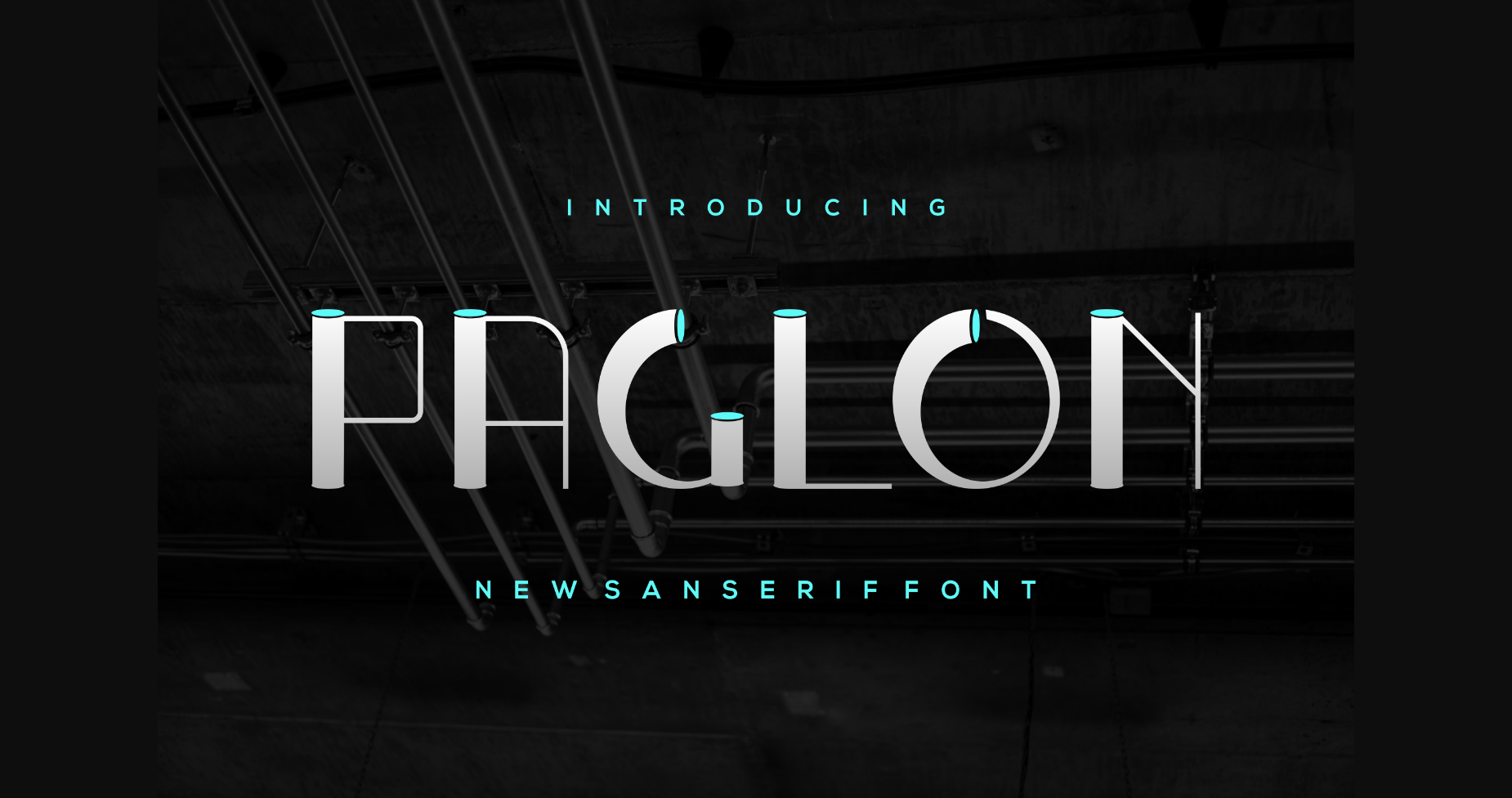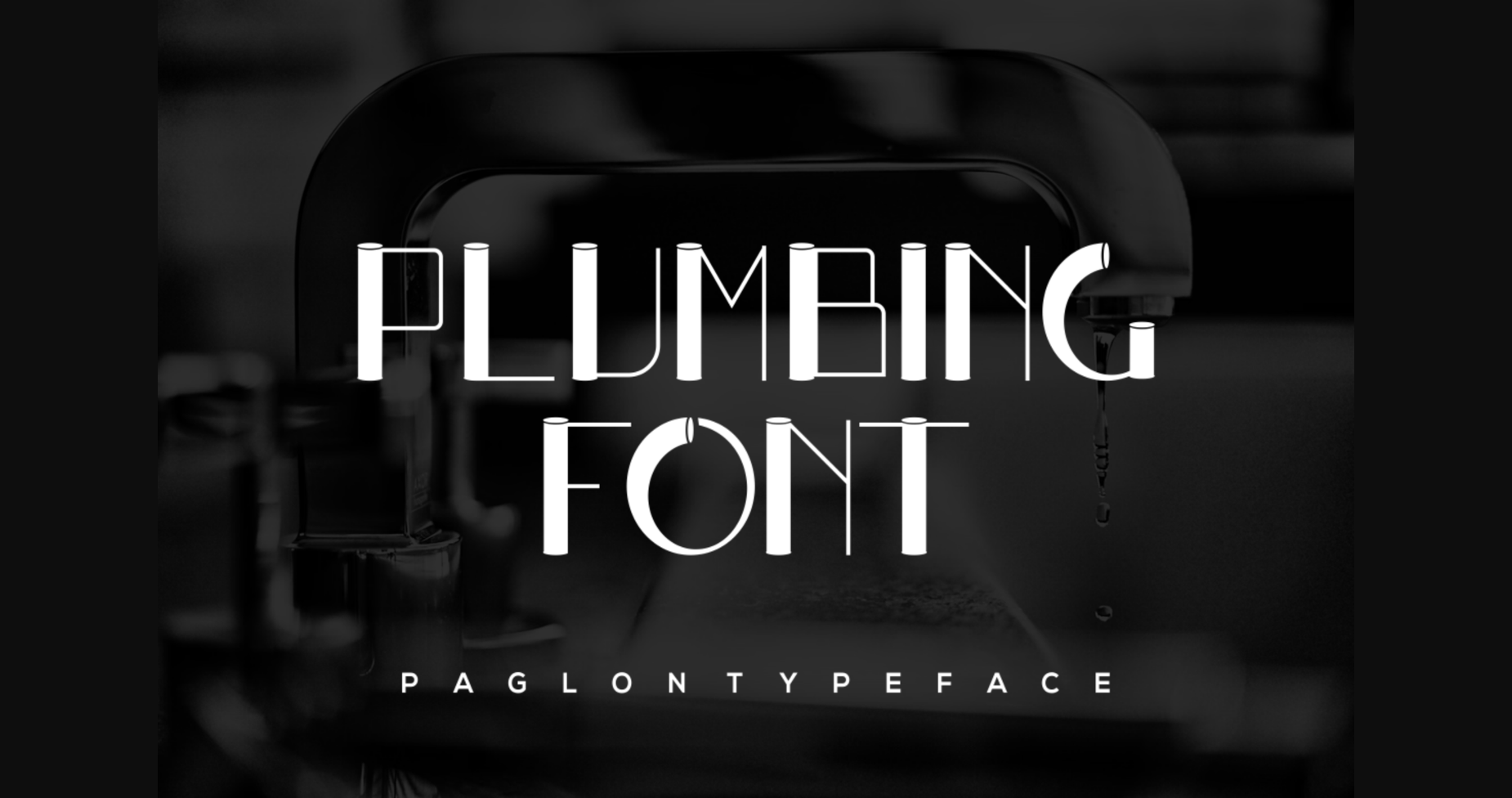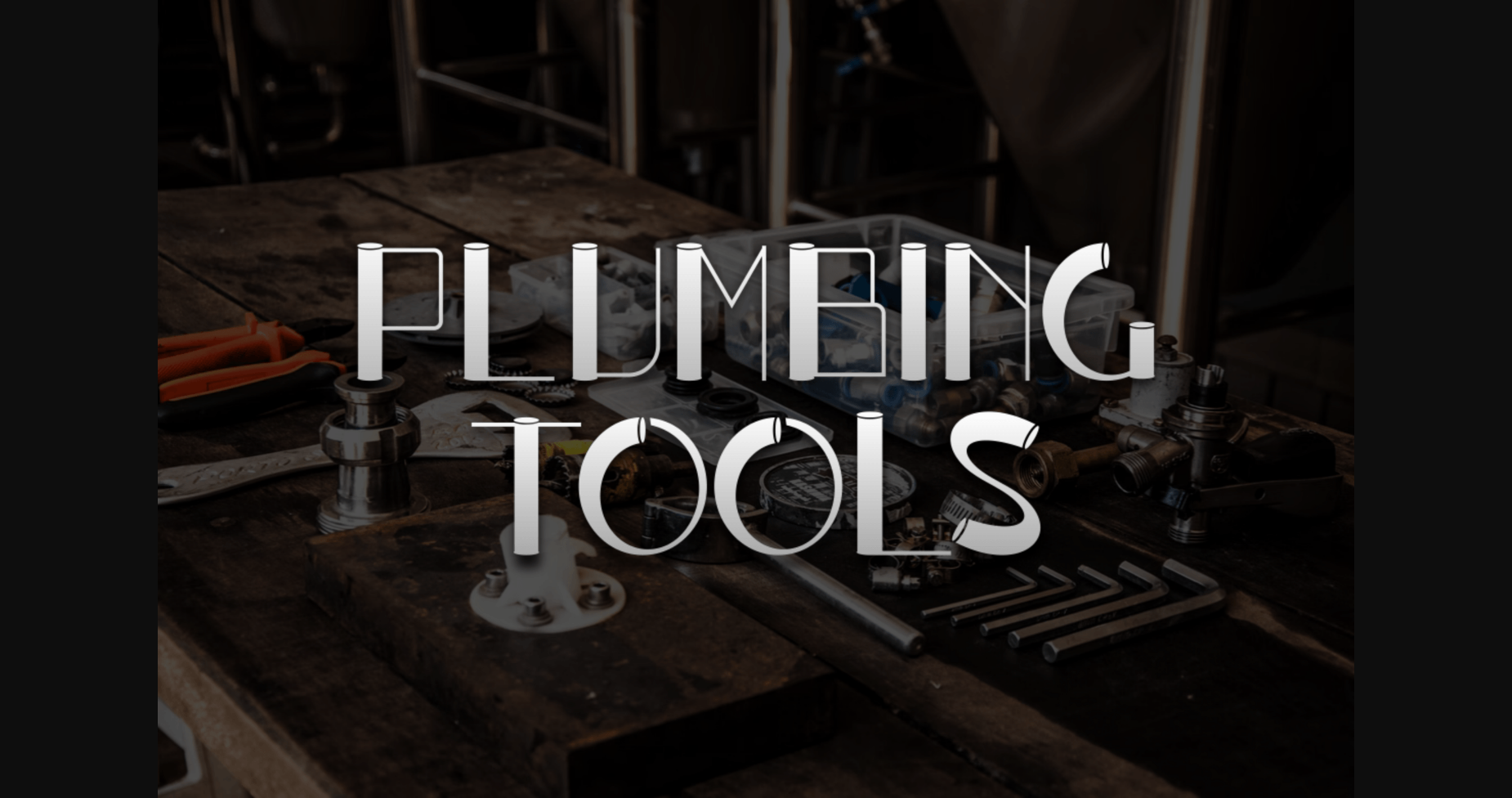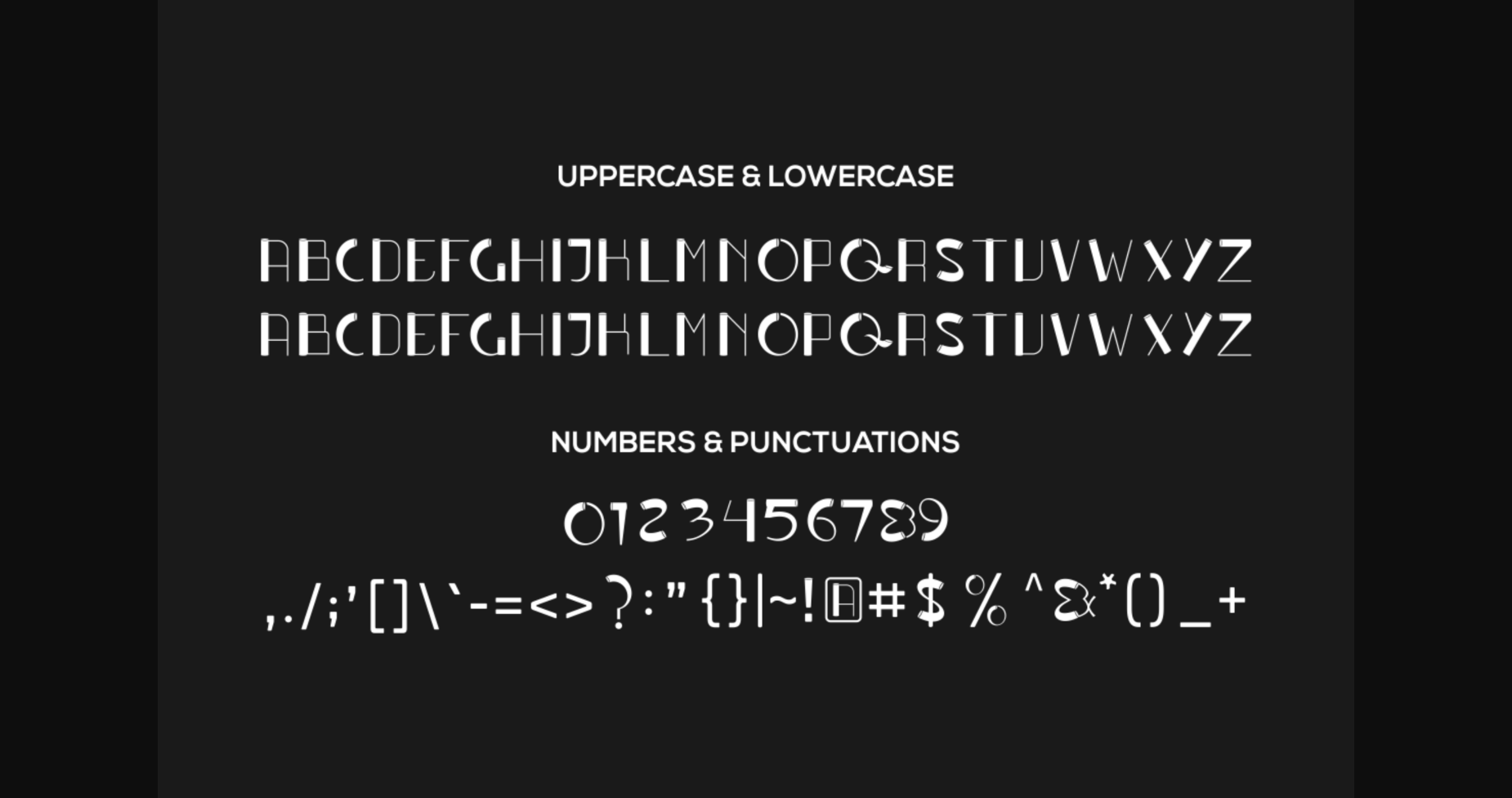
About Paglon Font
Paglon is a modern, bold, and authentic sans serif font suitable for any branding projects such as logos, T-shirt printing, Esports, and many more. Add it to your lovely creations, and it will be outstanding in a wide range of contexts.